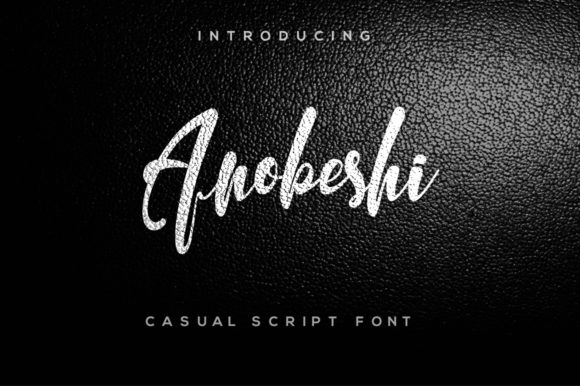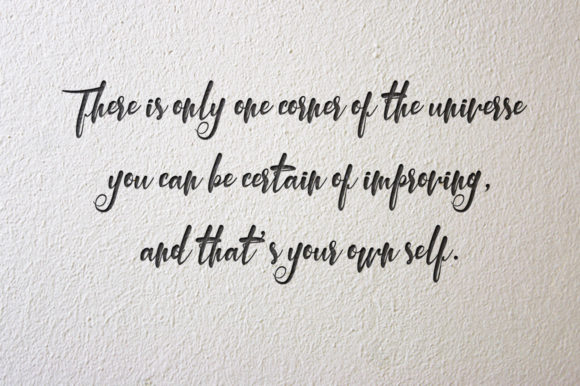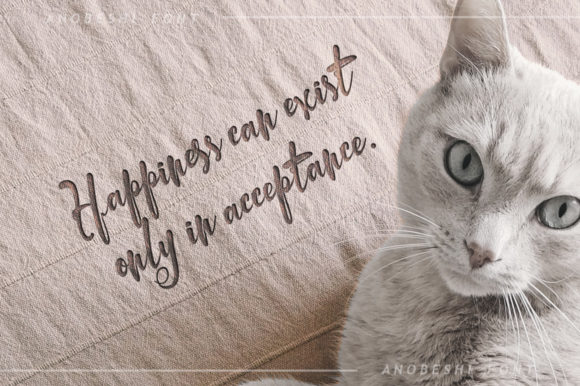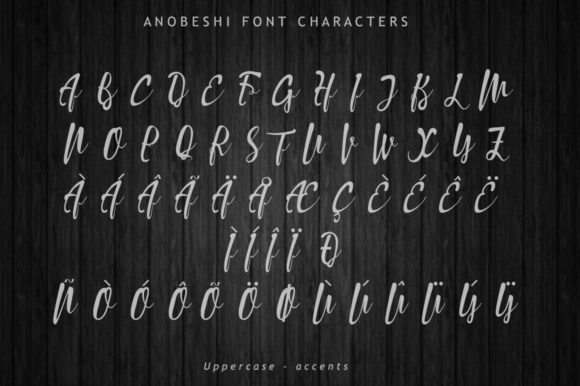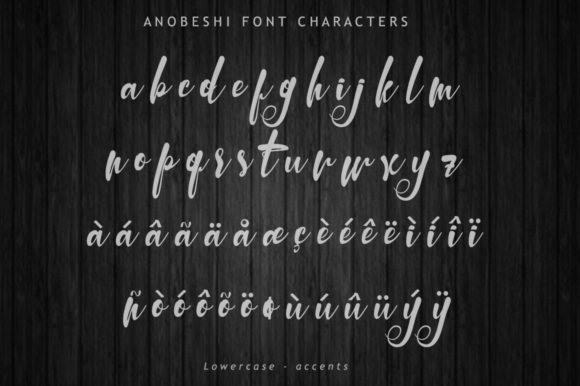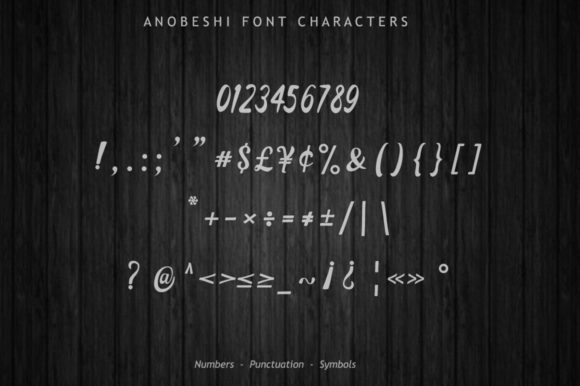
Anobeshi Font
About Anobeshi Font
Anobeshi is a casual script font with artistic curves. This font is an excellent choice for a variety of creative projects!